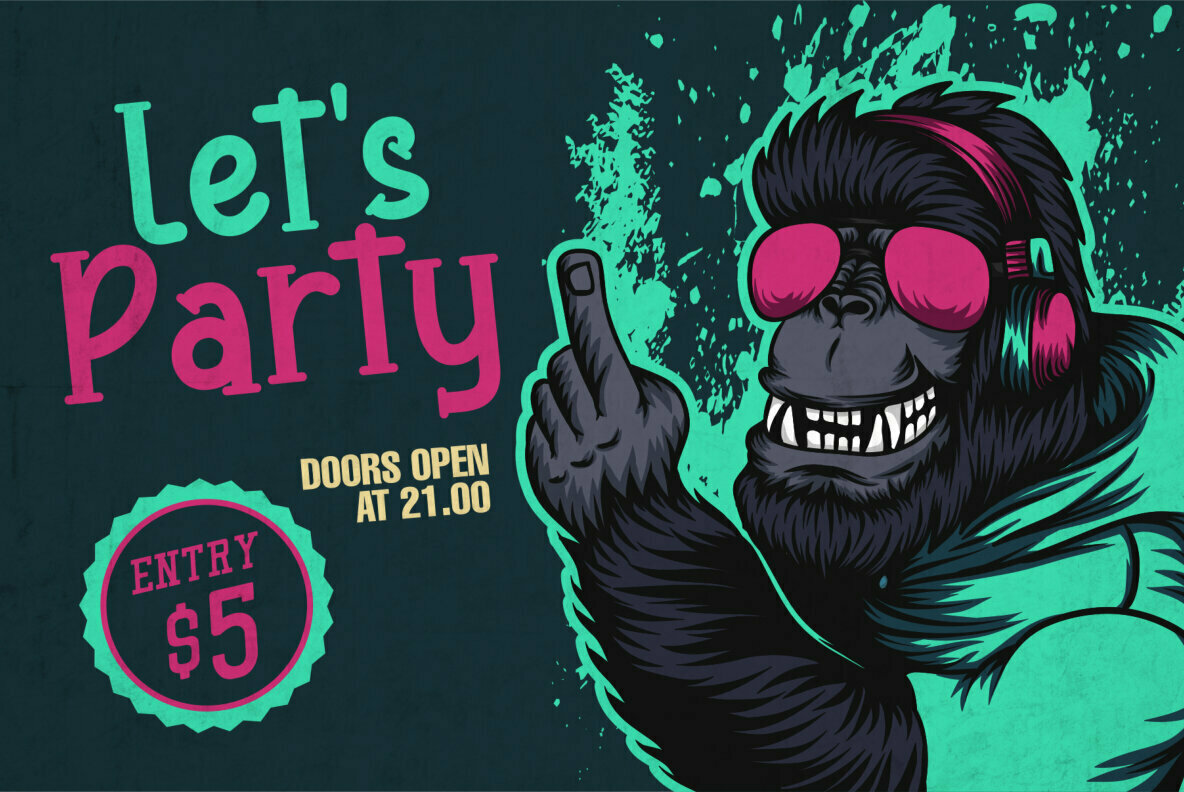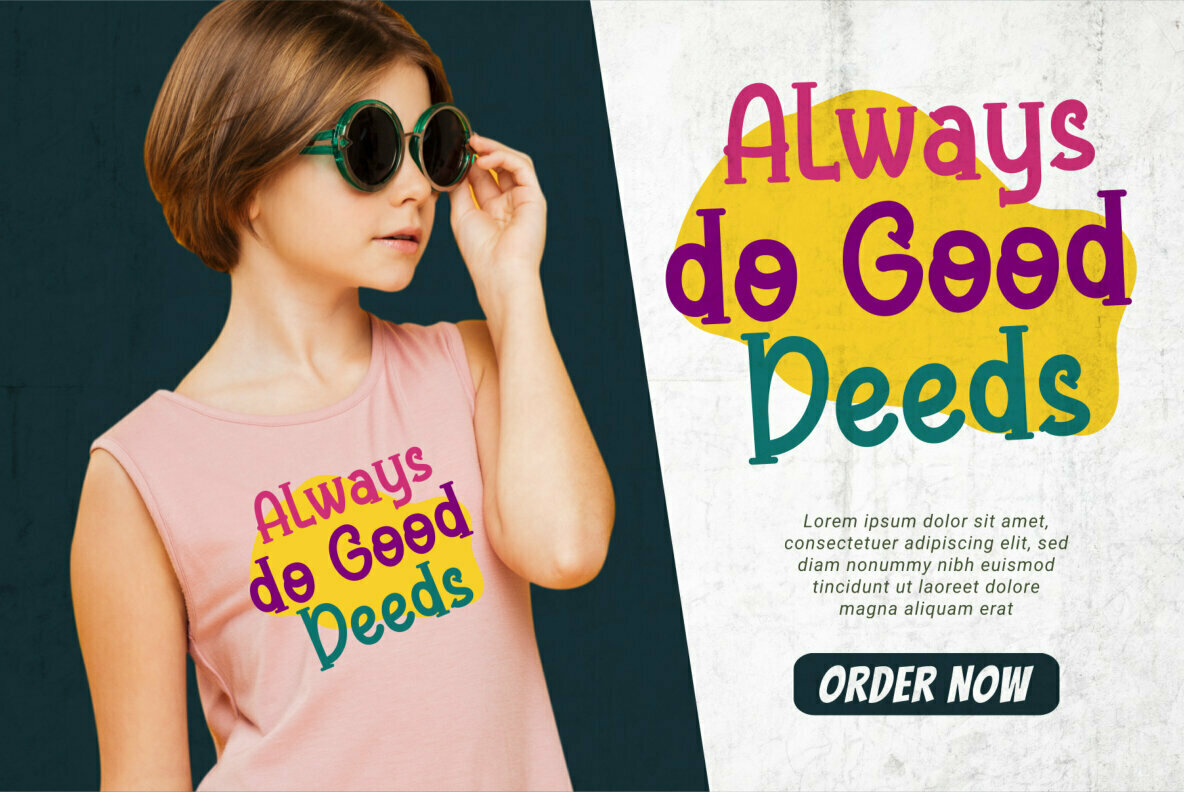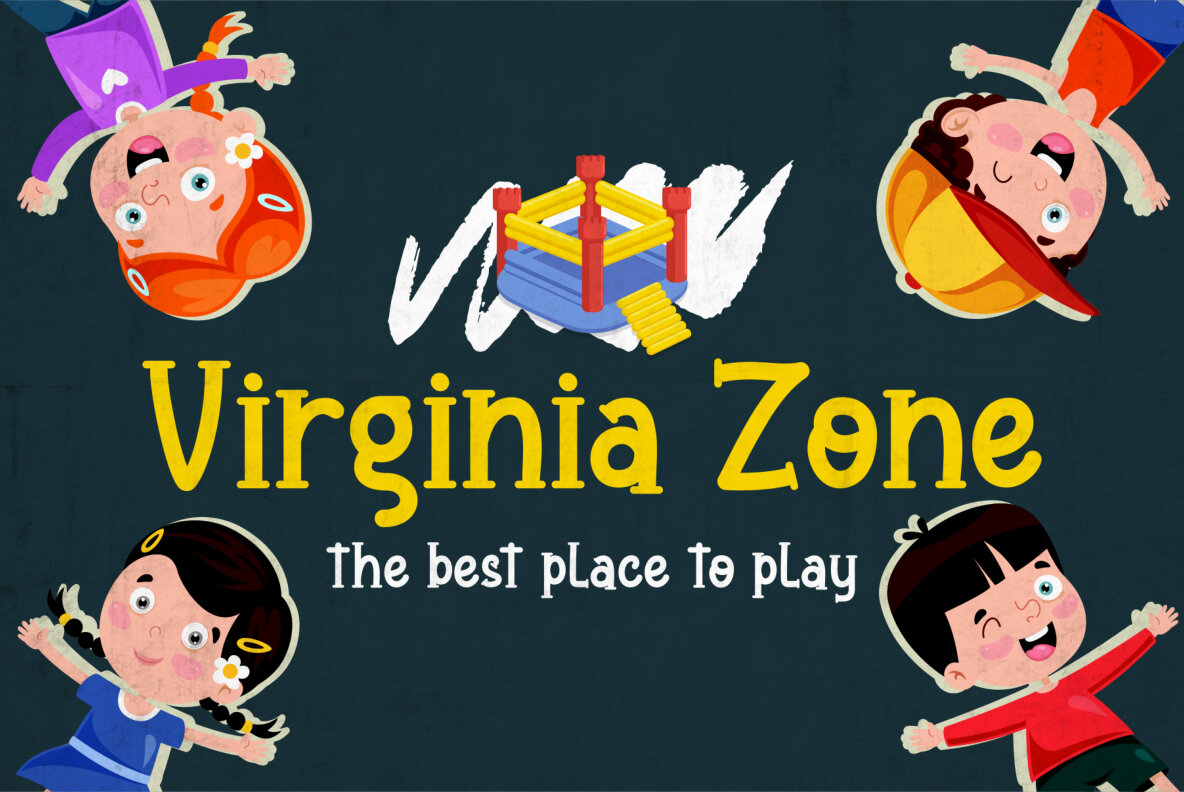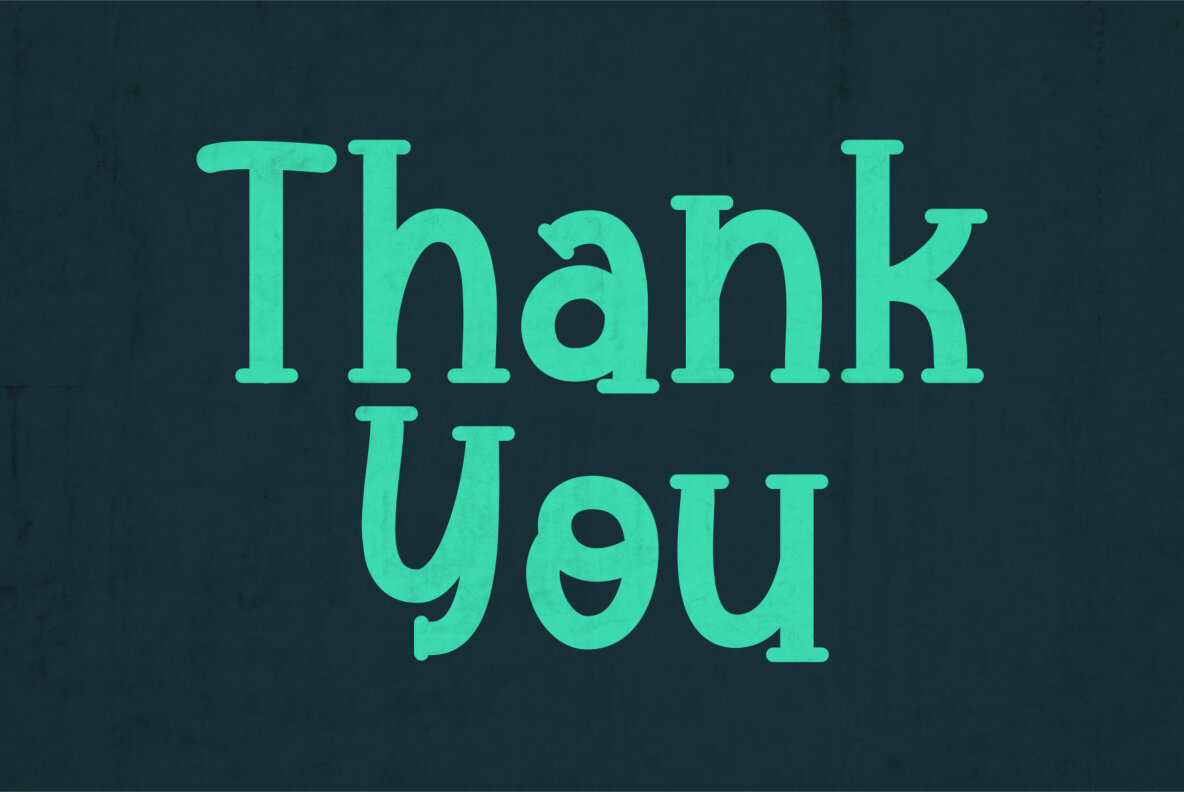
King Gorilla Font
King Gorilla
King Gorilla captures the essence of whimsy and creativity, positioning itself as an ideal companion for both professional projects and lighthearted designs. Its charm transcends traditional boundaries, artfully suiting logos, social media graphics, children's t-shirts, and book covers alike. At its core, King Gorilla infuses a layer of liveliness into any creative endeavor.King Gorilla: A Playful Typeface for Diverse Designs
Features of King Gorilla